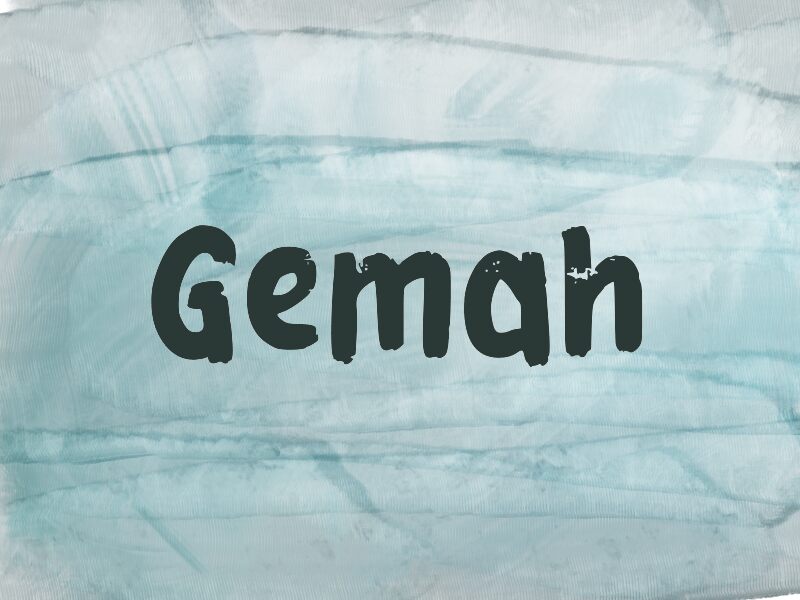
Gemah
Gemah by wep is a captivating handwritten font that exudes a sense of bold, organic expressiveness. With its dynamic, brush-like strokes and imperfect edges, this font conveys a raw, authentic energy that immediately grabs the viewer's attention. The bold weight adds a striking presence, making it a compelling choice for display text or headings that demand impact.
This versatile font lends itself well to a variety of design applications, from editorial layouts and branding materials to packaging and promotional items. Its distinctive character and natural flow make it an ideal selection for projects seeking to convey a handcrafted, artisanal aesthetic, evoking a sense of warmth and human touch.